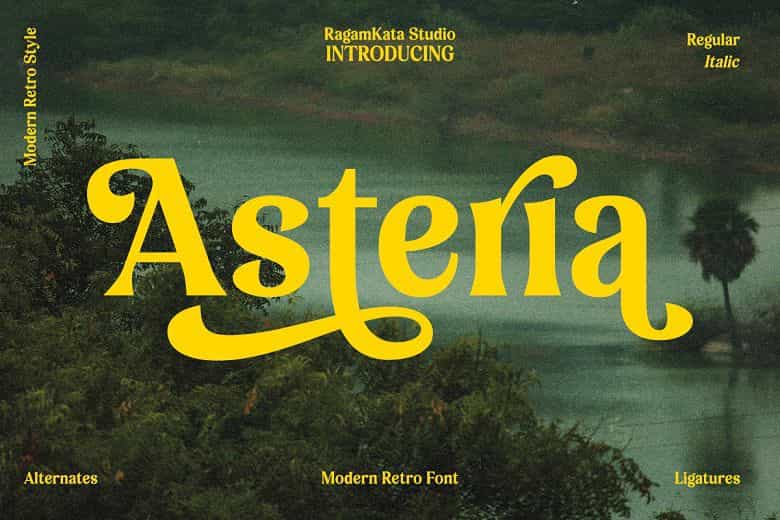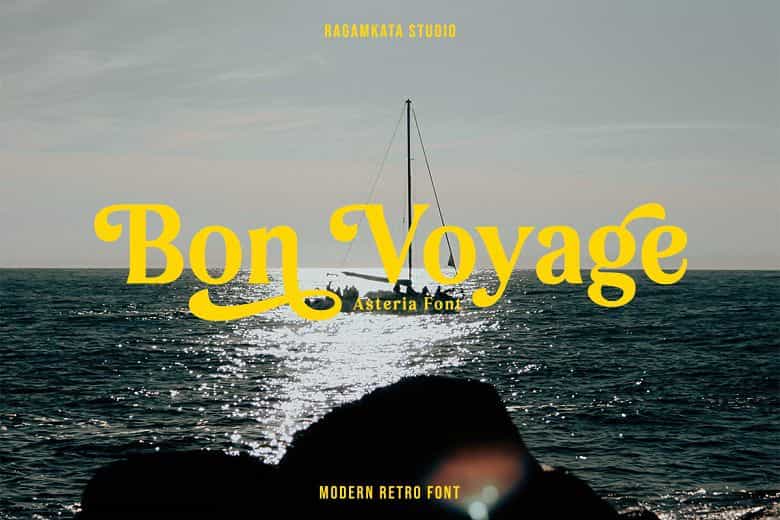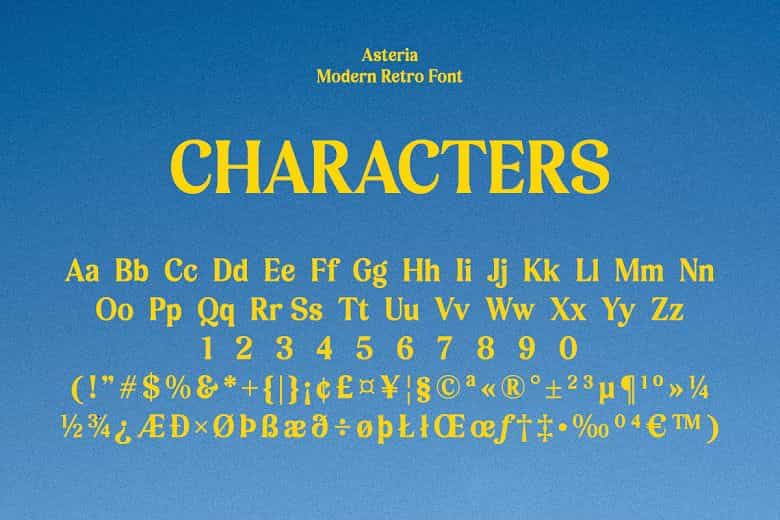
Asteria is a display font that belongs to the modern retro of fonts. This typeface is suitable for use in Magazine Titles, Posters, Logos, T-Shirts, Sub Titles, Business cards, Magazines, Book Covers, Wedding Invitations, Templates Instagram Story Post, Greeting Cards, Quotes, etc.